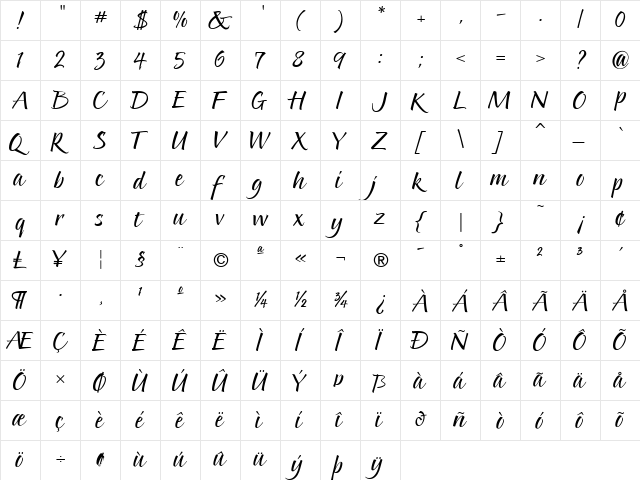
Pointed Brush Regular
| Foundry | TYPADELIC FONTS |
| Designer | Ronna Penner |
Design Context for Pointed Brush Typeface
Pointed Brush brings a calligraphic fluidity to the page — its connecting strokes and expressive curves give it an unmistakably human quality.
Font Pairing: Combine Pointed Brush with a simple geometric sans for maximum contrast — the tension between flowing curves and clean structure is a classic typographic pairing.
Pro Tip: Use Pointed Brush for short runs of text — names, titles, or taglines. Extended body copy in script faces tires the eye quickly.